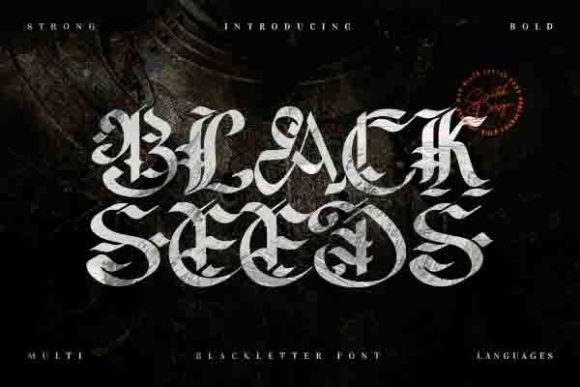
Welcome to the realm of Blackseeds Font, a striking blackletter typeface created by the talented Scratch Design. Blackseeds embodies the essence of darkness, mystery, and vintage charm, making it the perfect choice for those seeking a font that exudes an air of intrigue.
Embark on a journey into the depths of your creativity with Blackseeds, a font that captures the essence of storytelling and transports your designs to enchanting new worlds. Its unique blackletter style adds a touch of antiquity and drama, inviting your audience to dive into the captivating narratives you weave through your designs.
With Blackseeds at your disposal, you'll have a versatile tool that seamlessly adapts to a wide range of projects. From designing horror-themed posters and book covers to creating eye-catching logos and branding materials, Blackseeds' dark and alluring aesthetics will leave a lasting impression.
Step into the realm of the macabre and let Blackseeds ignite your creativity. Its bold and captivating strokes command attention, drawing your audience's gaze into the heart of your designs. Unleash the power of darkness and let Blackseeds cast a spellbinding aura over your projects.
Let Blackseeds be the brush that paints your words with a touch of mystery and allure. Its vintage charm evokes a sense of nostalgia, transporting your designs to a bygone era where stories whispered of shadows and secrets.
Elevate your designs to new heights with Blackseeds, a font that embodies both darkness and beauty. Its intricate details and bold strokes will add depth and dimension to your creations, leaving your audience captivated by its captivating presence.